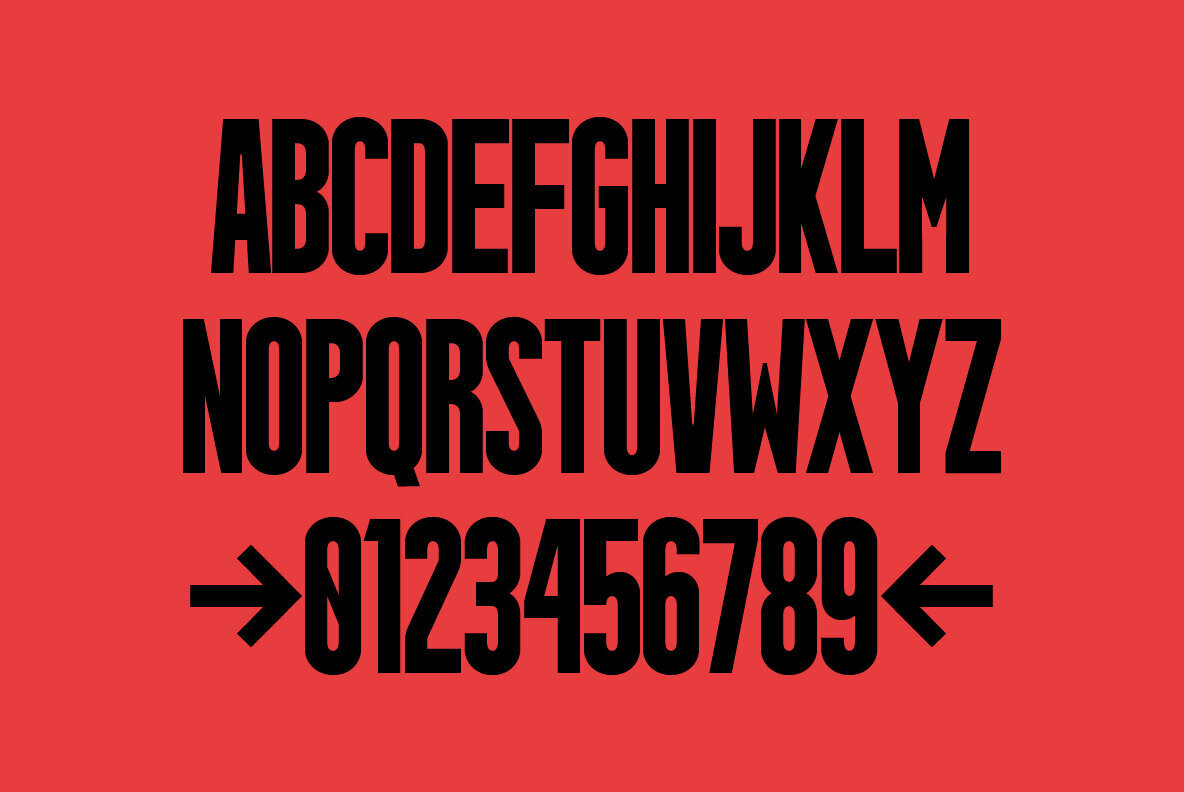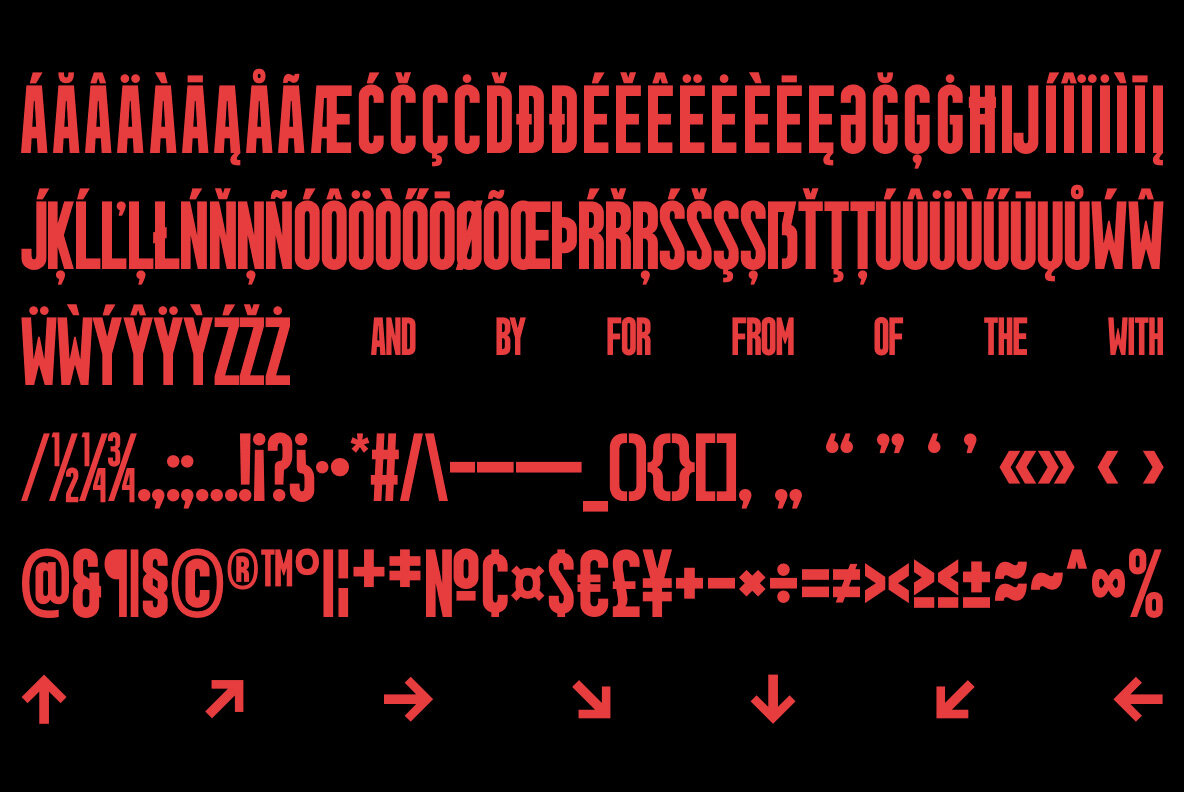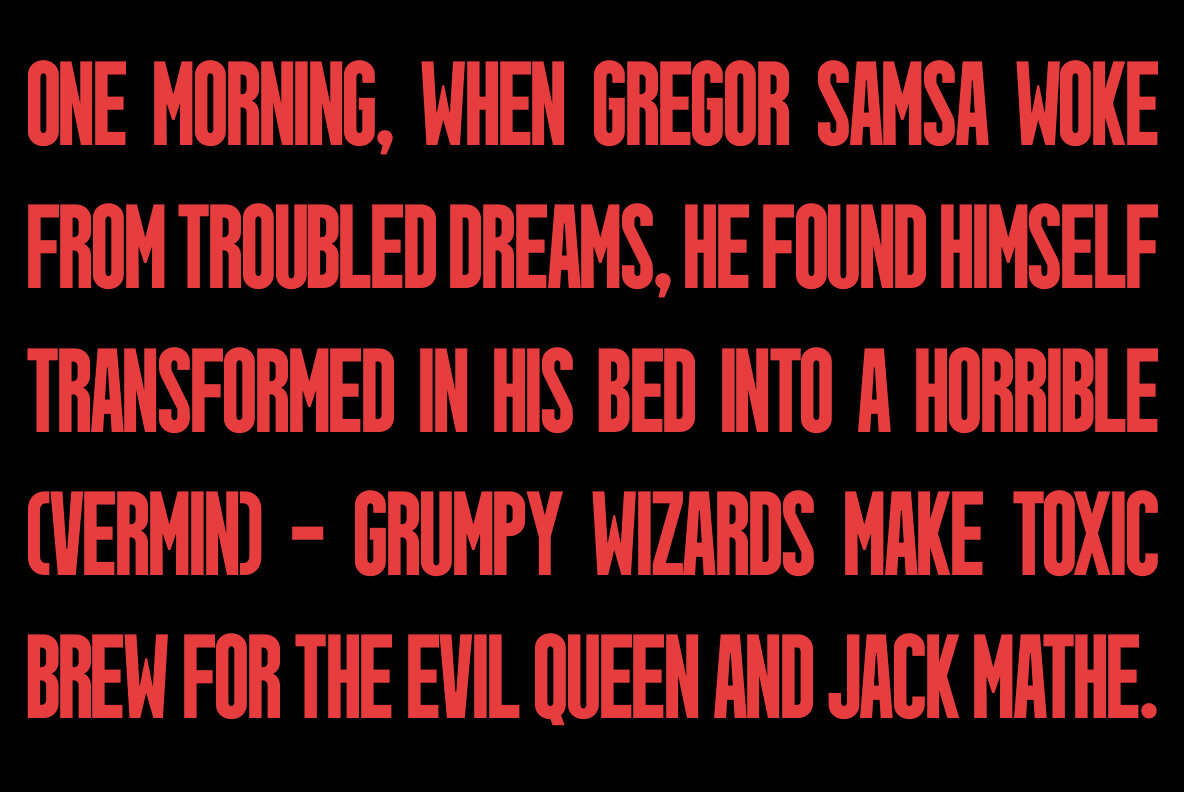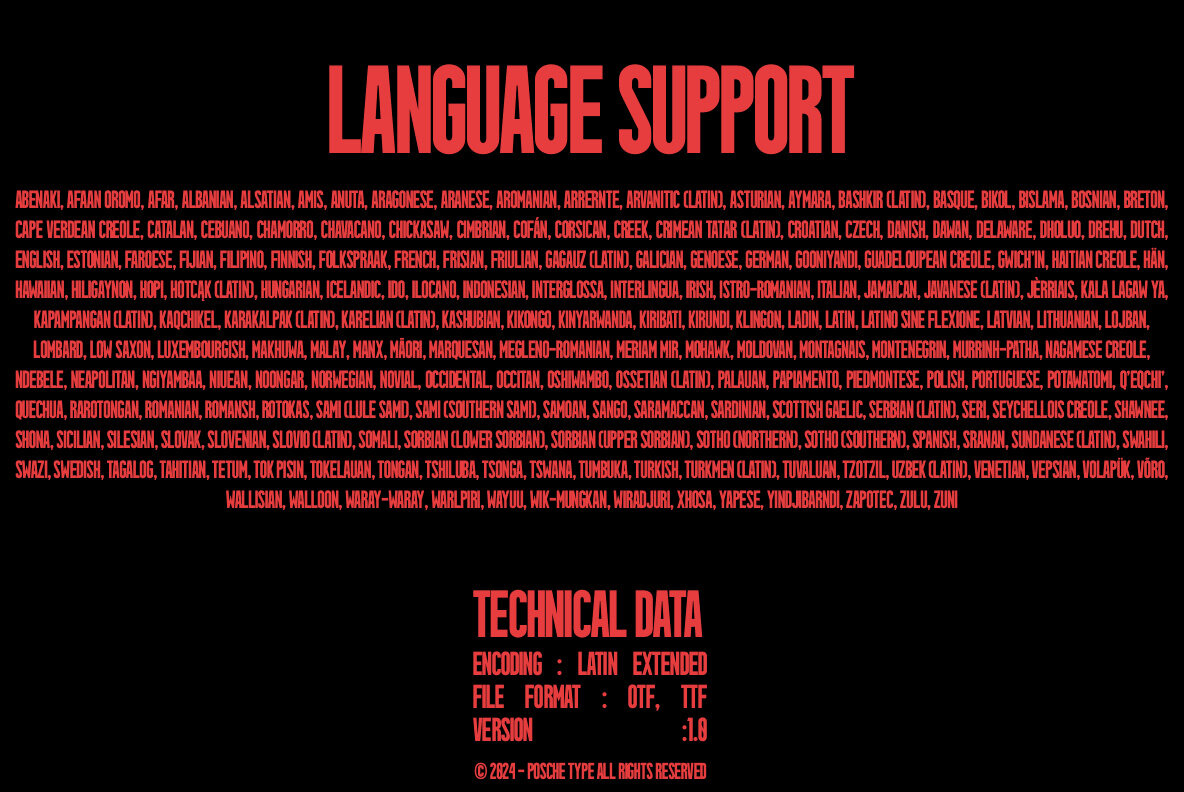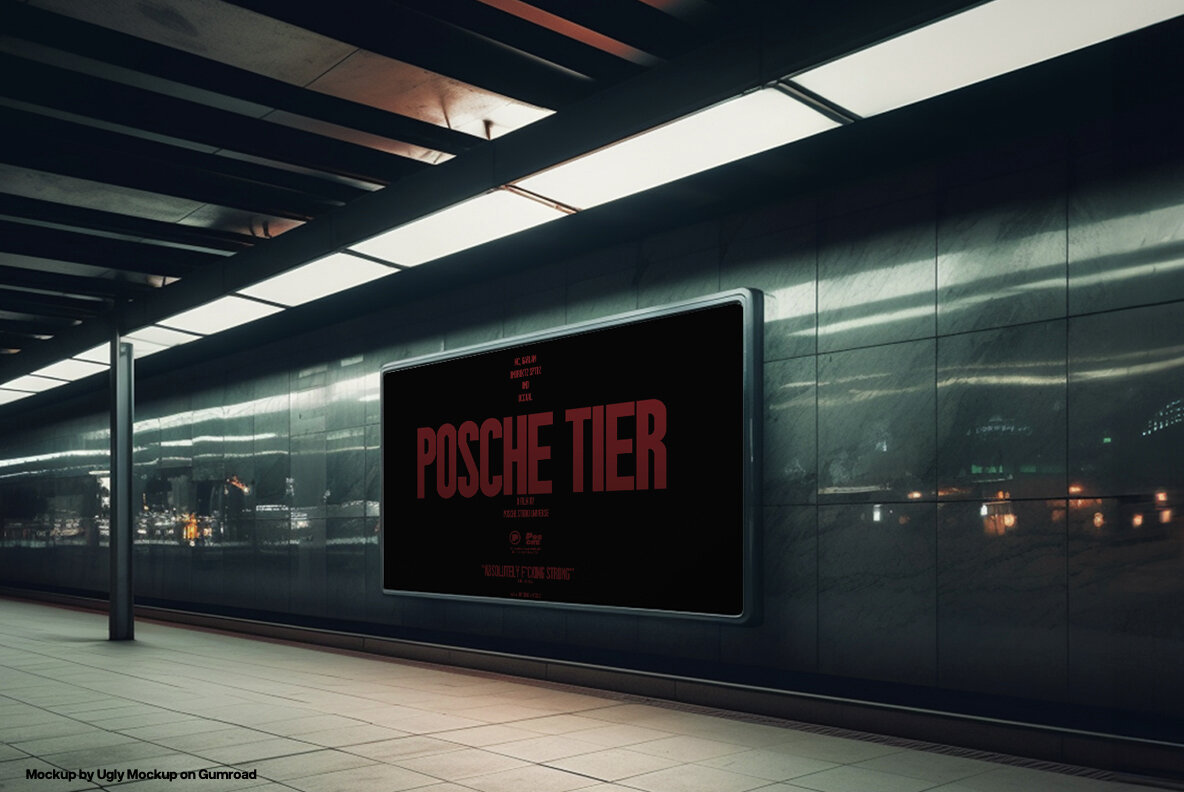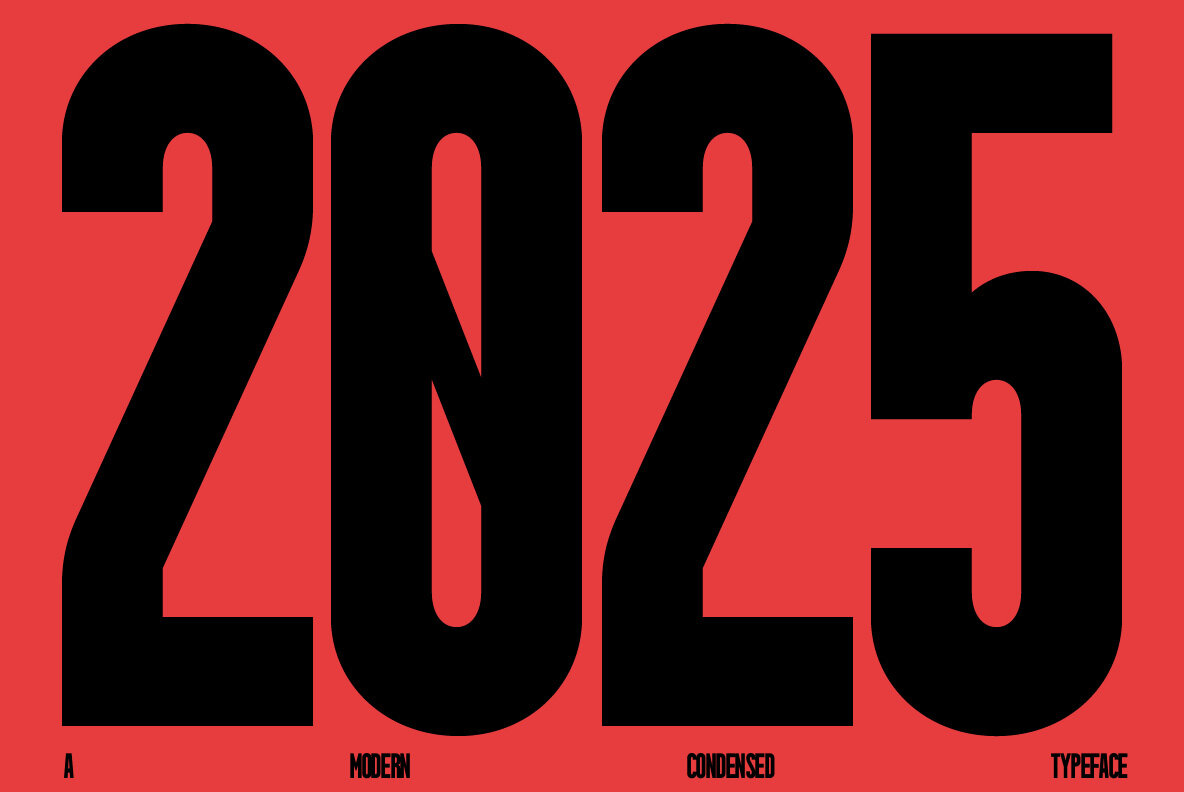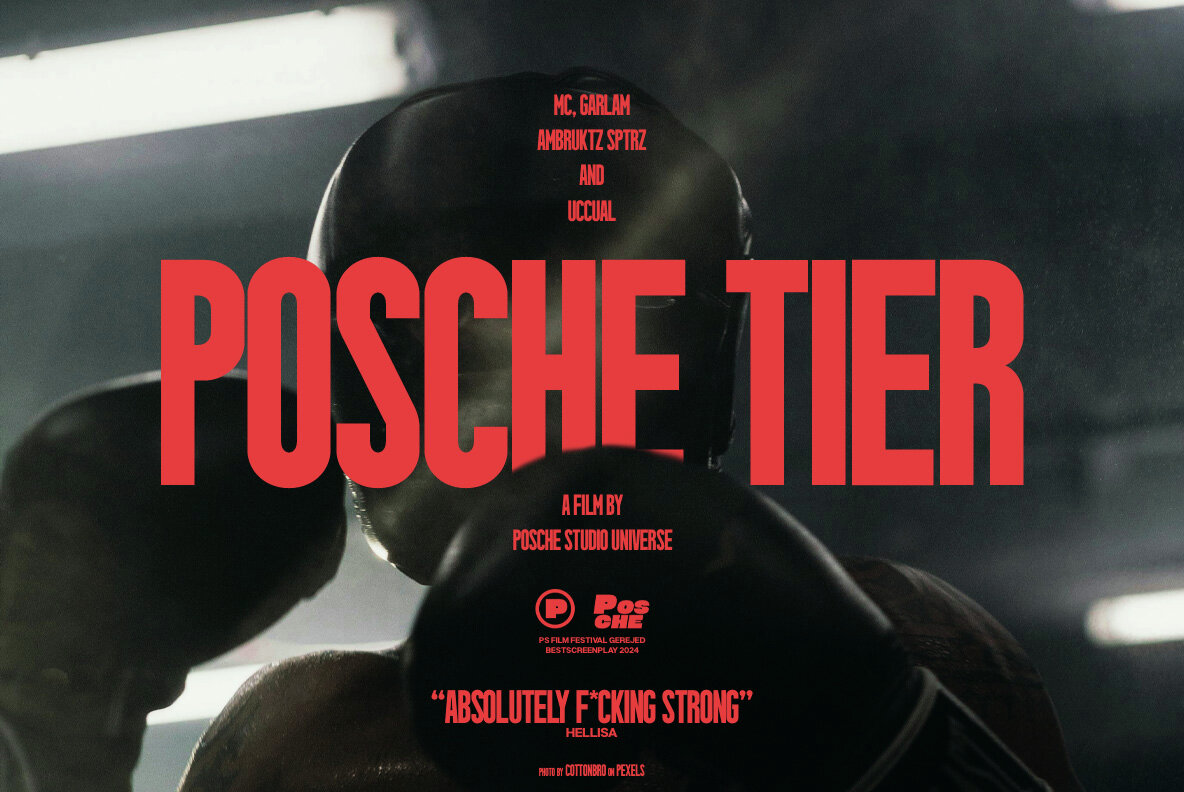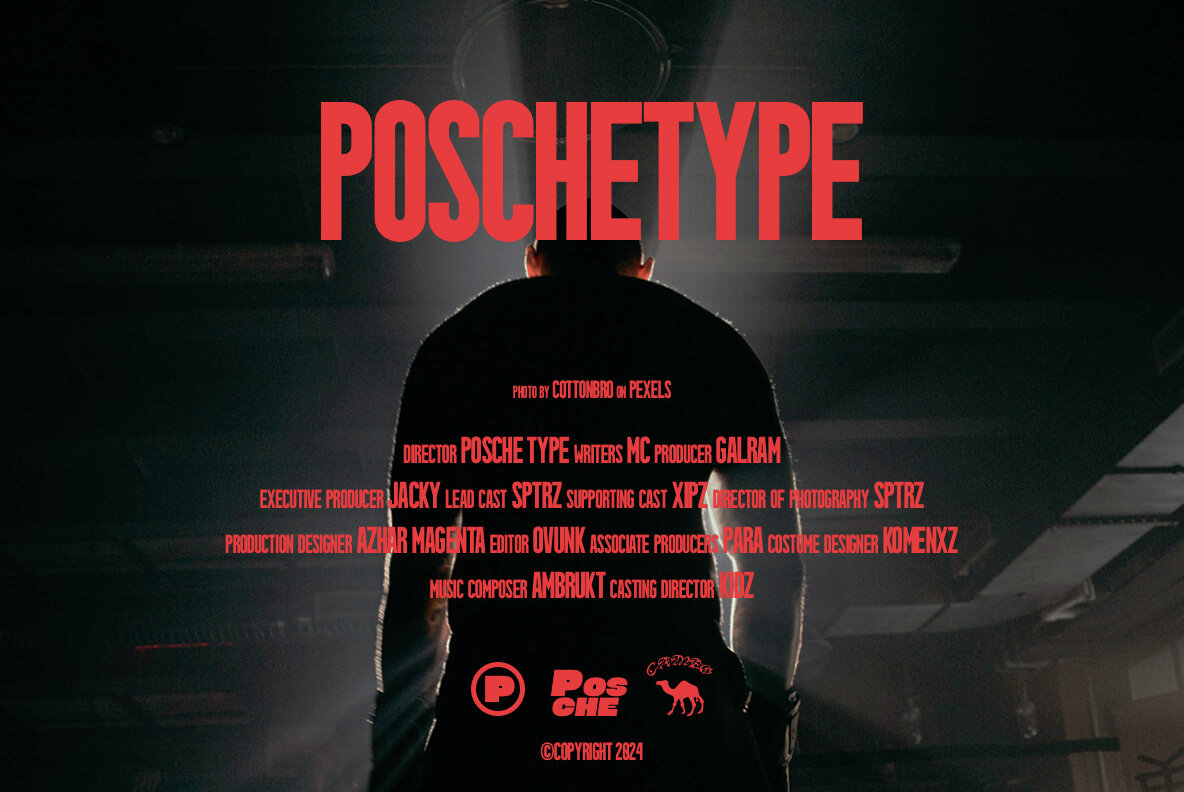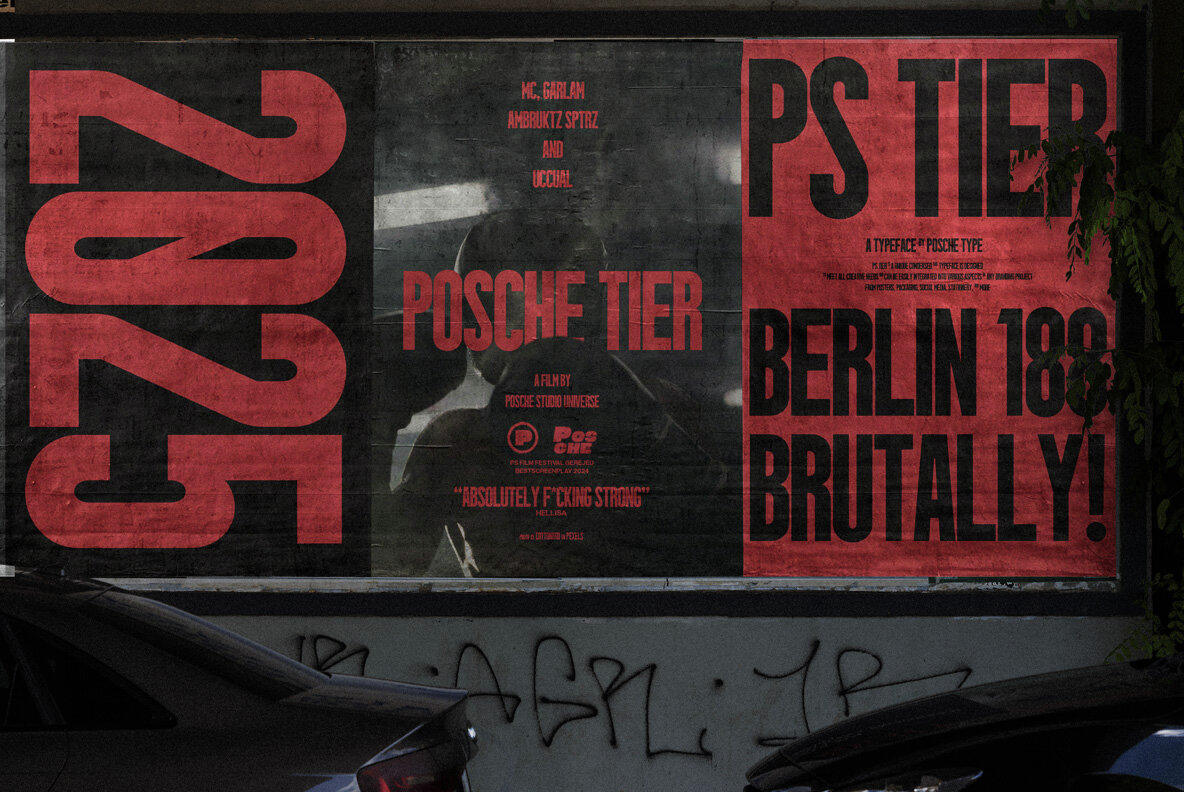
PS Tier Font
PS Tier is a bold and distinctive condensed sans serif typeface, drawing inspiration from movie typography. Ideal for posters, titling, and other creative projects, this typeface stands out when juxtaposed with various design elements. Its sleek design adds a strong visual impact to any composition.
In its initial release, PS Tier offers multilingual support, handling Latin Extended characters to accommodate Western, Central, and South Eastern European languages. This versatility ensures that your design communicates effectively across different regions. Additionally, the typeface includes a range of icons and symbols, enhancing its utility and flexibility for diverse design needs.